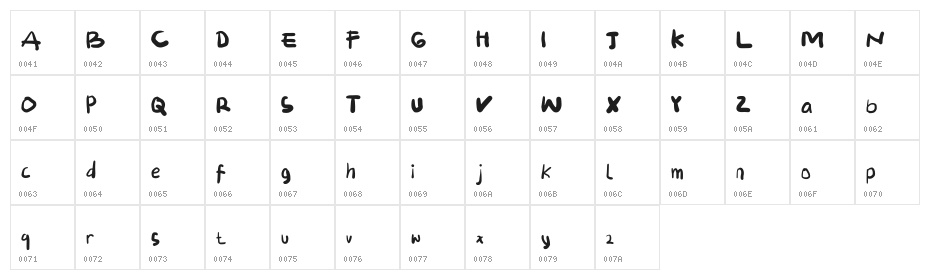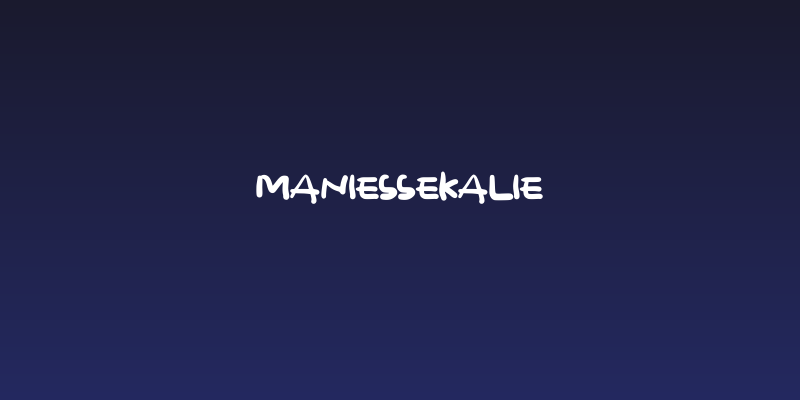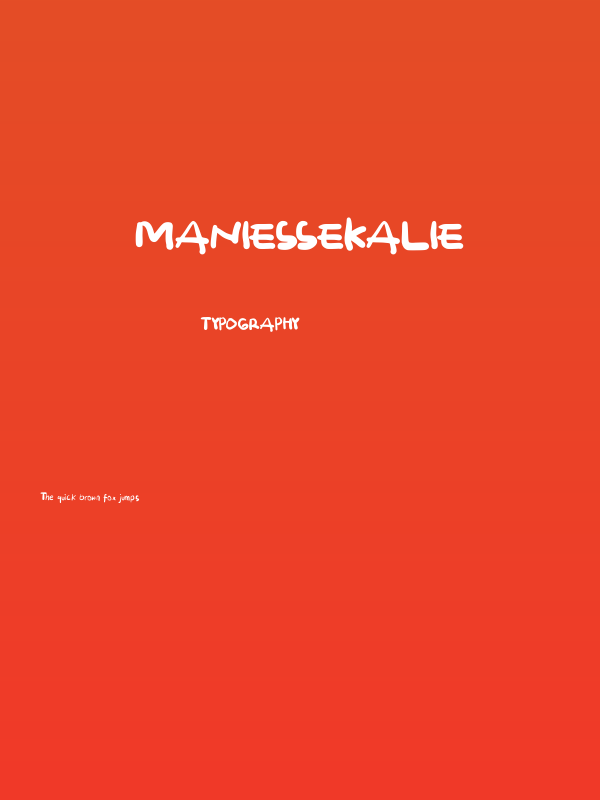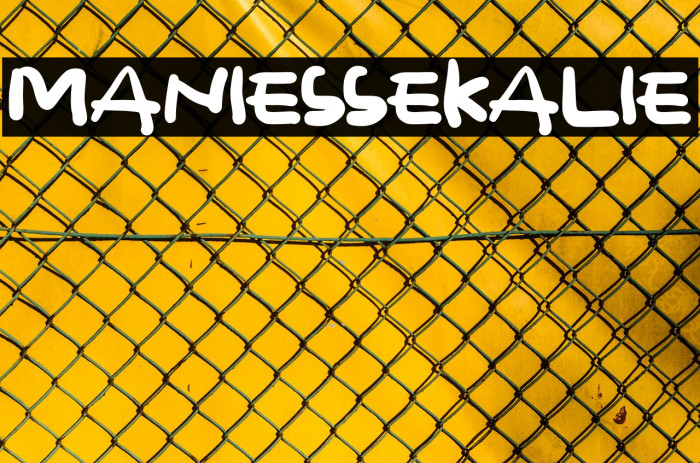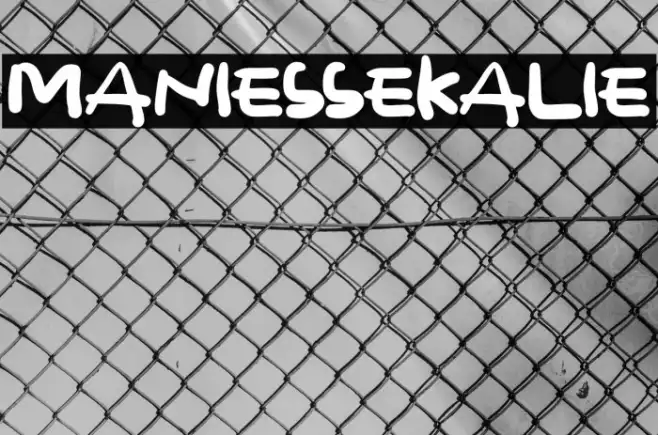
MANIESSEKALIE Font
MANIESSEKALIE Description
This font features a playful and bold handwritten style, characterized by its thick, rounded strokes and slightly irregular letterforms. The uppercase letters are prominent and assertive, while the lowercase letters maintain a consistent flow, adding a touch of casual elegance. The numbers and special characters are designed to match the overall aesthetic, ensuring a cohesive look across all text elements. Its unique style makes it stand out, offering a friendly and approachable vibe suitable for various creative projects.
| Use Case | Headlines, Logos, Casual Text |
| Proposed Projects | Ideal for children's books, playful branding, greeting cards, and casual invitations. |